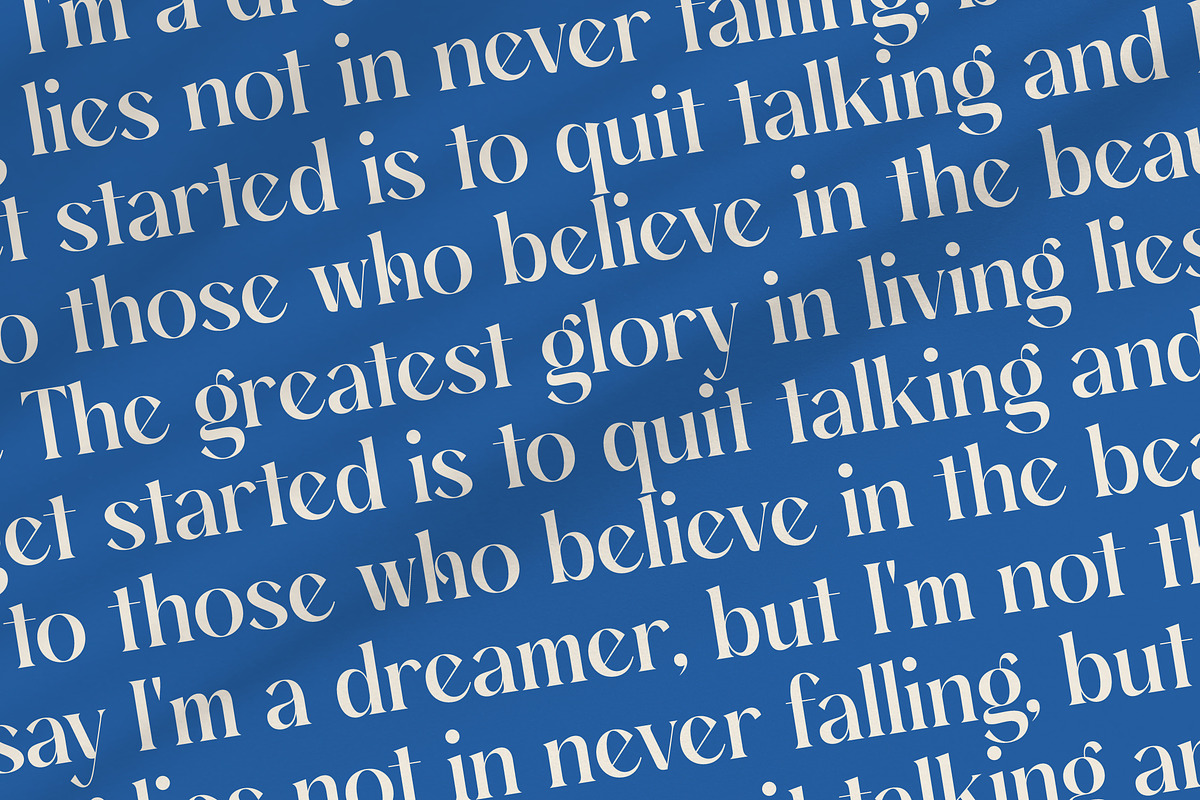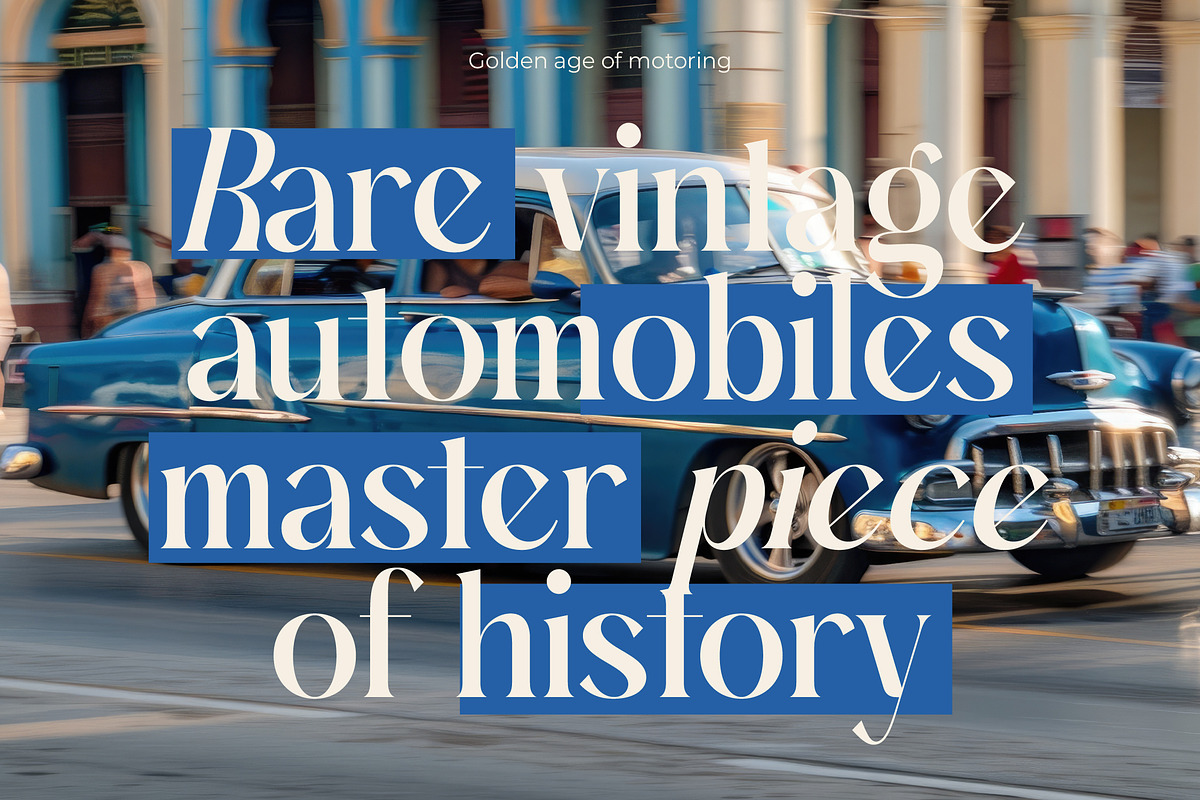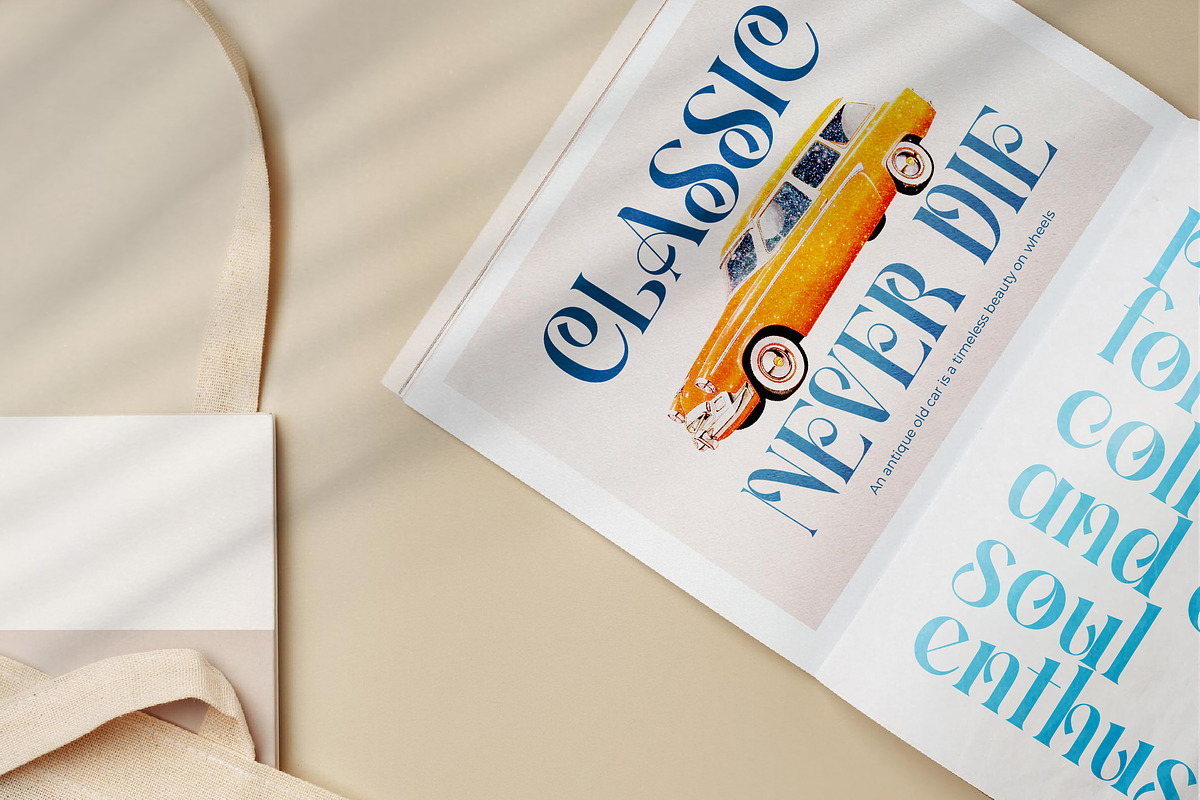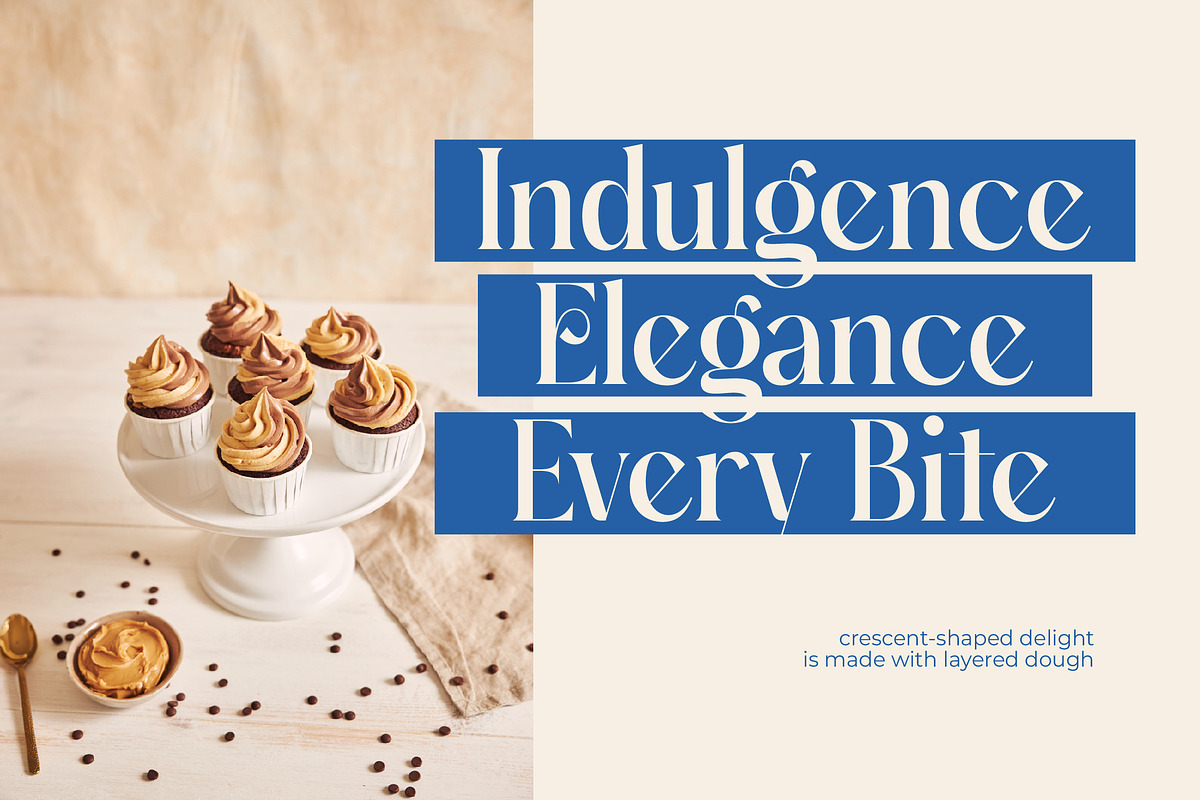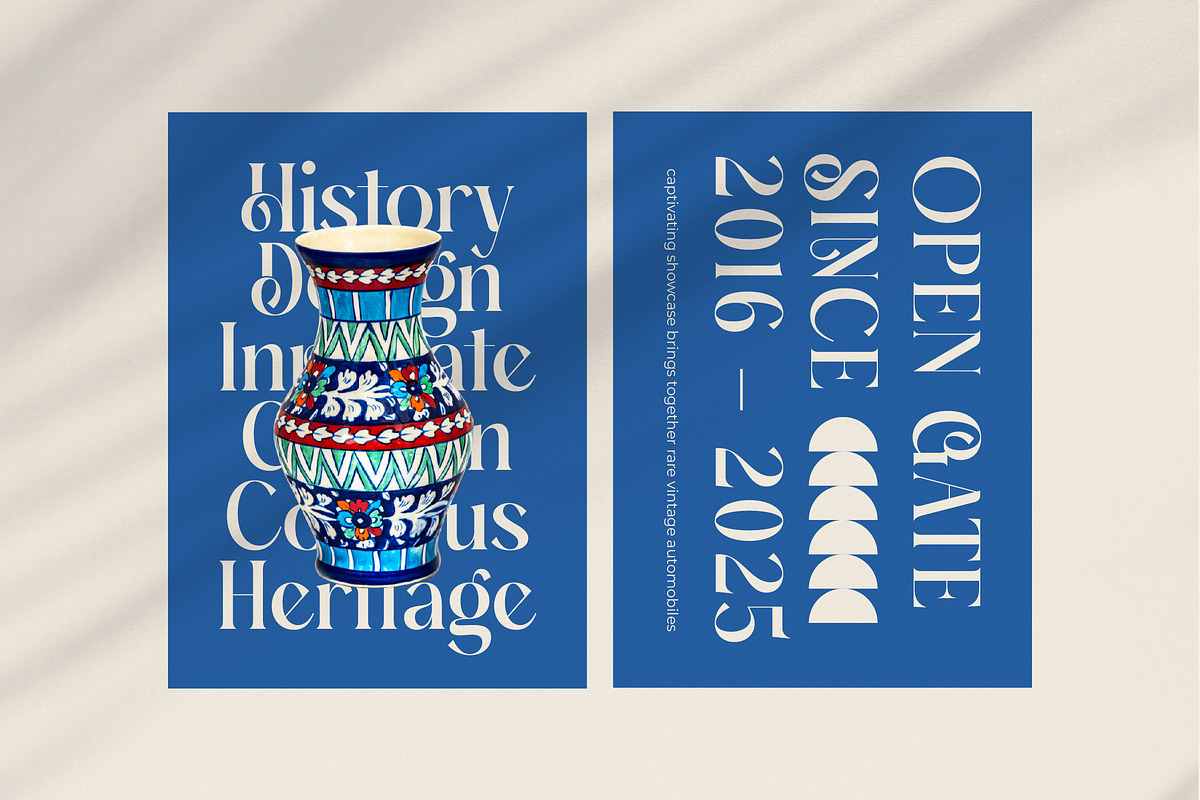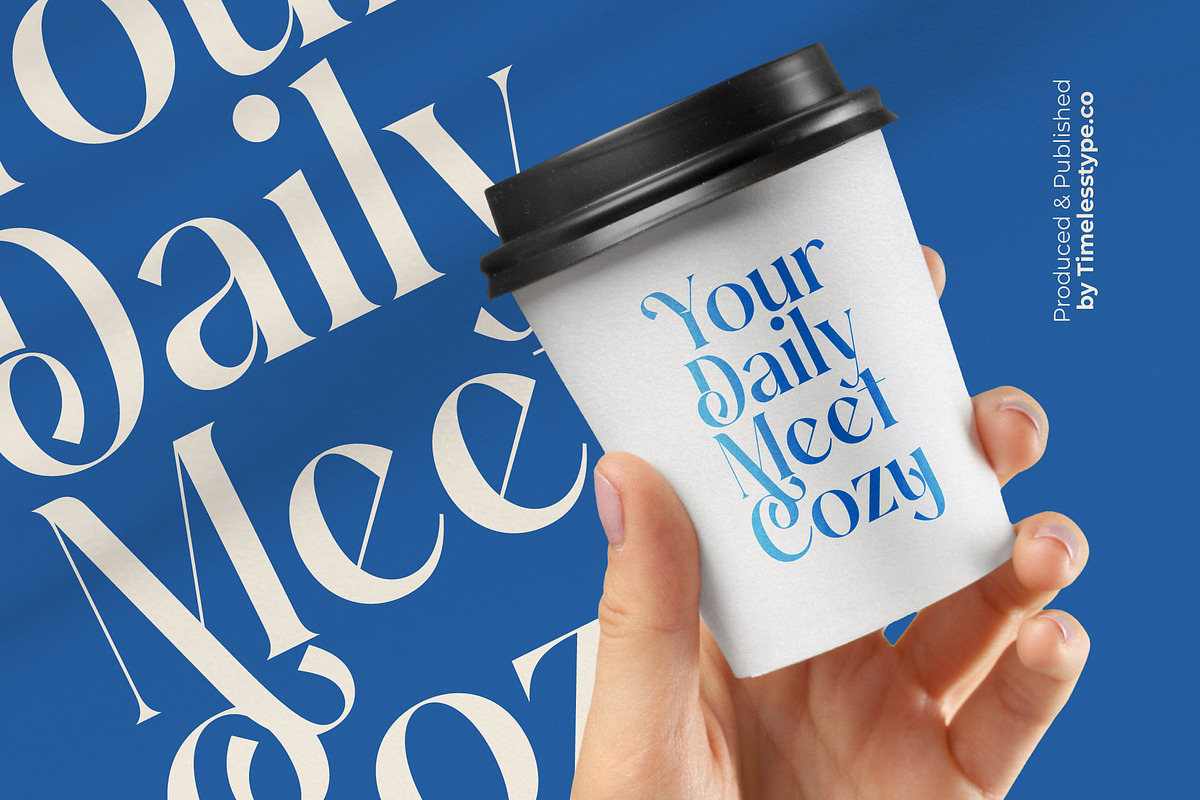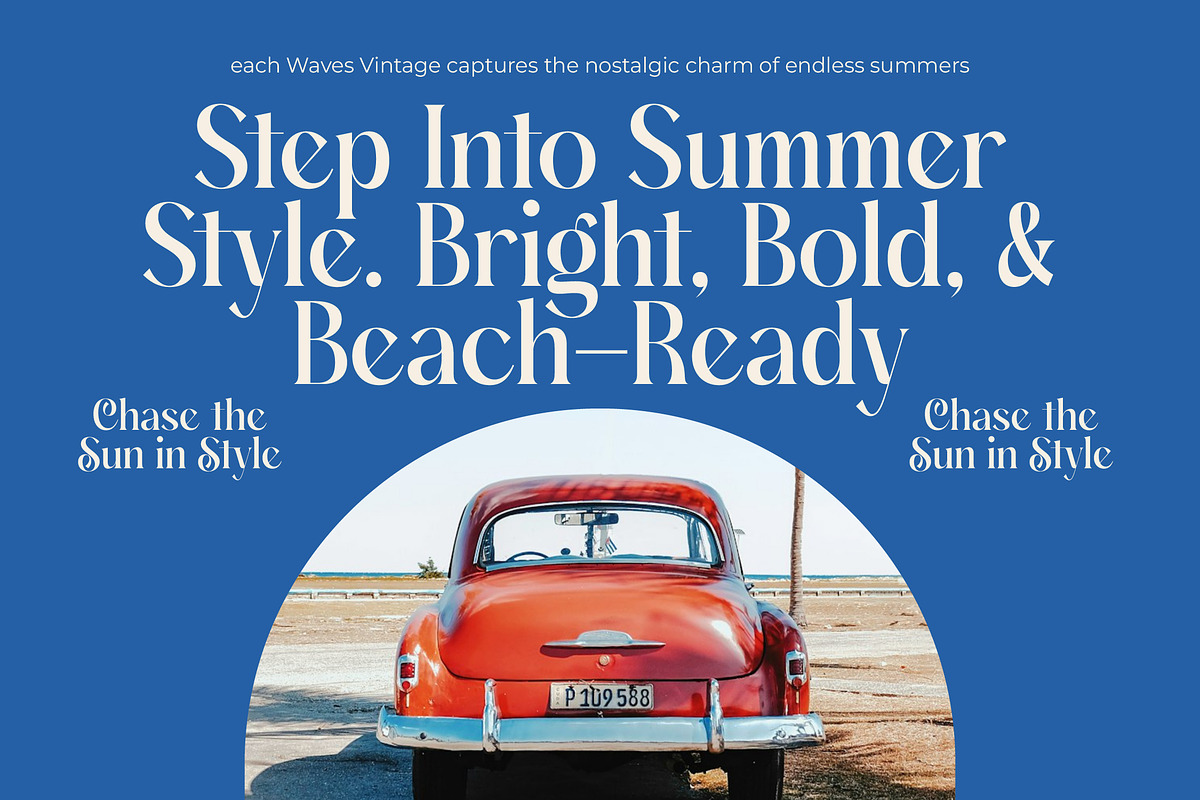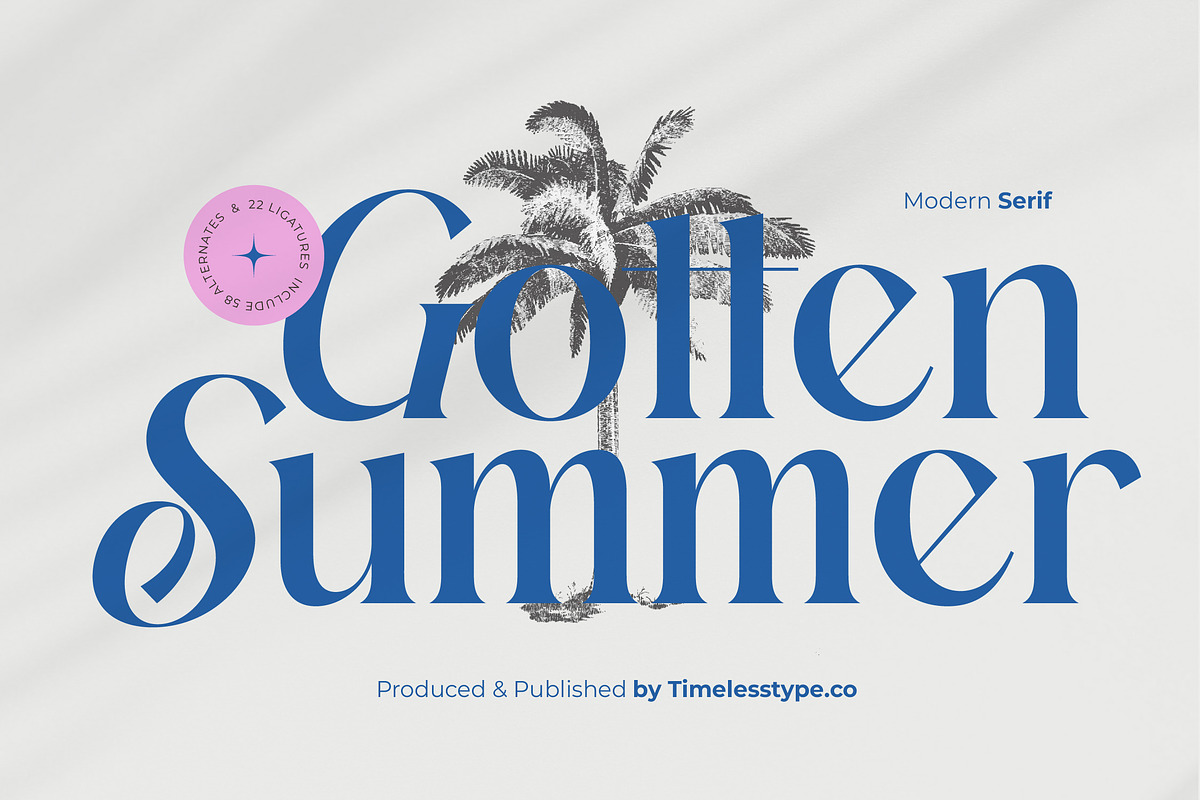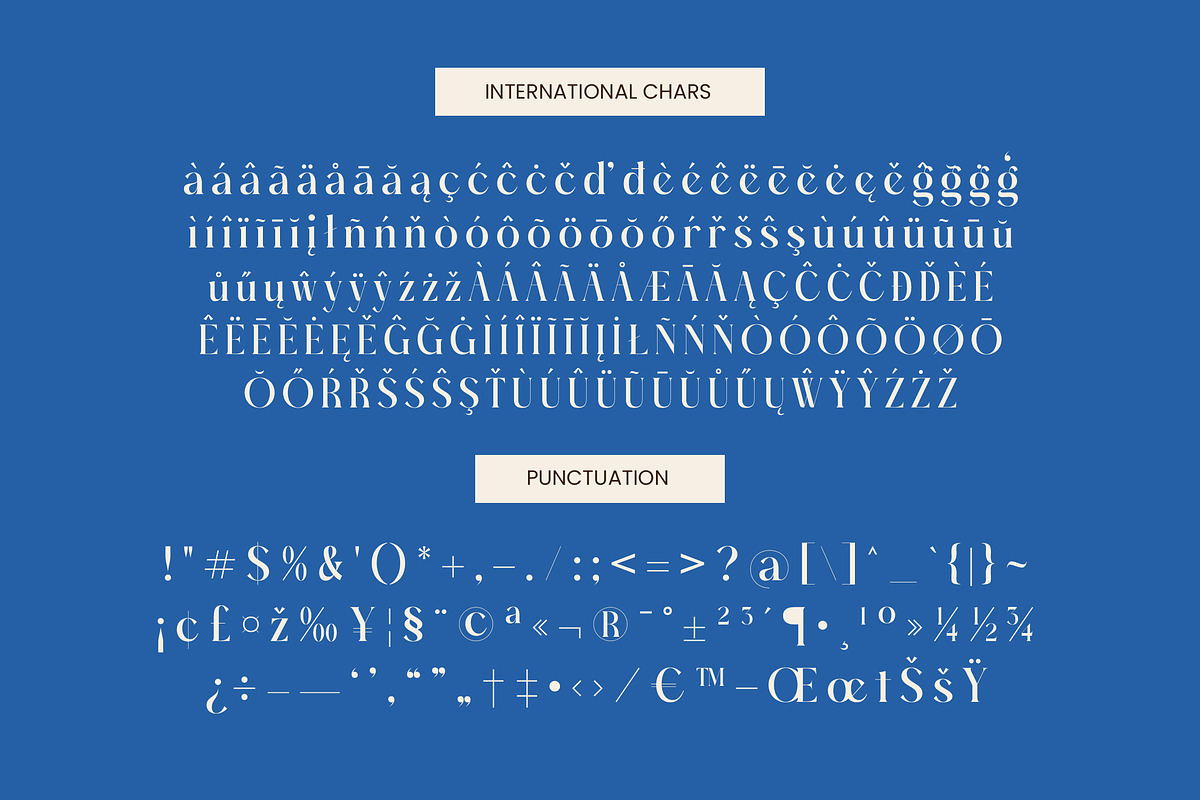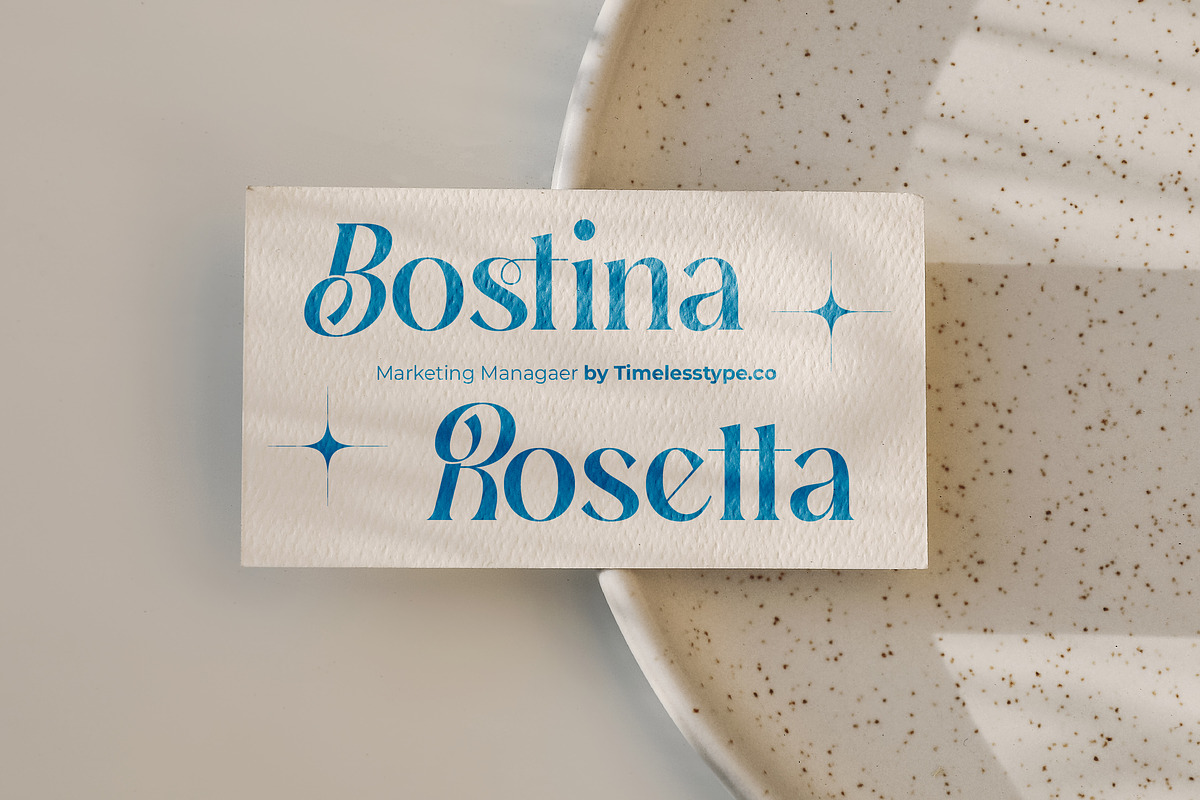
Gotten Summer Modern Serif Font
Gotten Summer introduces an air of effortless sophistication to your creative toolkit, blending timeless elegance with a crisp contemporary edge. This display serif is meticulously designed to captivate your audience and elevate every word into a refined piece of visual art.
Inspired by the sun-drenched atmosphere of high-end coastal retreats, this font captures the essence of a warm Mediterranean breeze and a luxury lifestyle. Its letterforms reflect the rhythmic shadows of palm leaves and the curated aesthetic of vintage travel posters found in boutique hotels.
This modern serif display exudes a sense of luxury typography through its stunning high-contrast serif design, making it a perfect choice for an editorial font seeking maximum branding impact. Each character is crafted to balance bold vertical strokes with delicate hairlines for a truly premium and balanced feel.
Staying ahead of the modern serif trend, this typeface aligns perfectly with current editorial display fonts that favor character-driven typography. It responds to the growing demand for expressive fonts that break away from standard geometric shapes in favor of organic, artistic flourishes and unique silhouettes.
Whether you are working on high-end logo design or cohesive branding projects, this font excels in editorial layouts, premium packaging, and romantic wedding stationery. Its versatile nature also makes it a staple for the fashion industry, from magazine headers to social media storytelling.
The collection is packed with a wide variety of ligatures, alternates, and decorative swashes that allow for custom typographic compositions tailored to your specific vision. It also includes full support for multilingual layouts and international characters, ensuring your message reaches a global audience without compromise.
- Ligature 22 Alternate 58